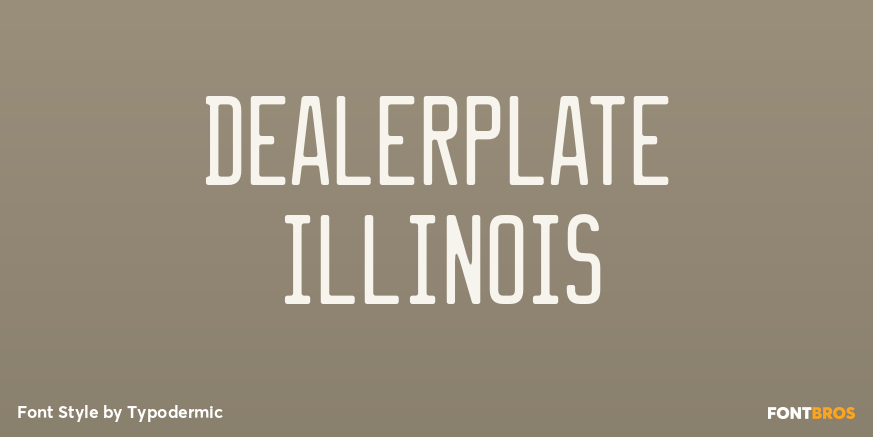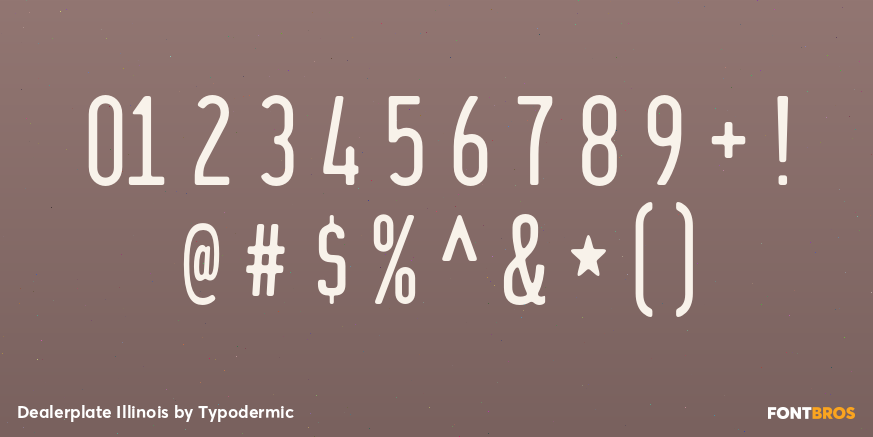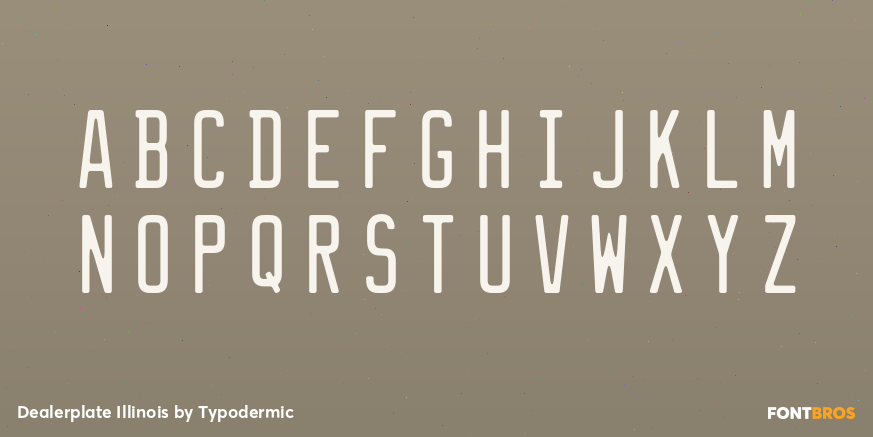
Dealerplate Illinois
Dealerplate Illinois develops Illinois-inspired license-plate forms into a complete display alphabet. It solves the missing-letter problem that appears when a real plate sample has too few characters for a fictional registration, title, interface label, or related piece of vehicle documentation.
Use it for Chicago police procedurals, Midwestern road films, urban driving games, automotive exhibits, virtual-production traffic, evidence boards, tow-yard graphics, parking permits, and fictional registration records. The style is useful anywhere an Illinois vehicle plate must share a believable visual language with case labels, garage signage, vehicle menus, or background props instead of being isolated as a single photographic detail.